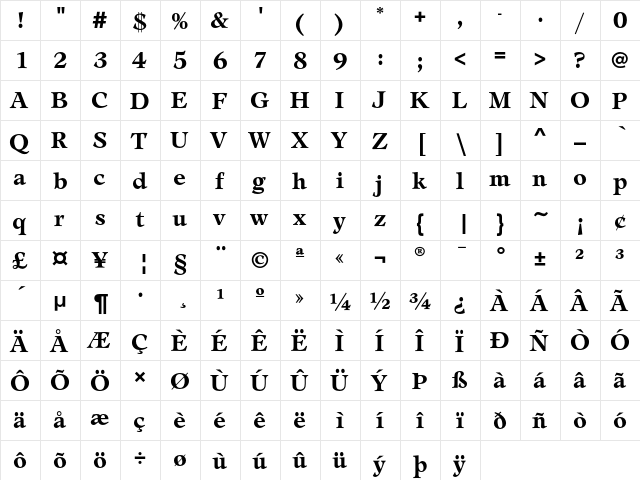
LeamingtonEF Bold Font Preview
LeamingtonEF Bold
Design Context for LeamingtonEF Typeface
LeamingtonEF takes a measured approach to typography — its balanced proportions and neutral character make it a reliable workhorse for both digital and print work. Its bold stroke weight gives it real presence on the page.
Pro Tip: Use LeamingtonEF in both headline and body roles to test its range before committing to a single application.